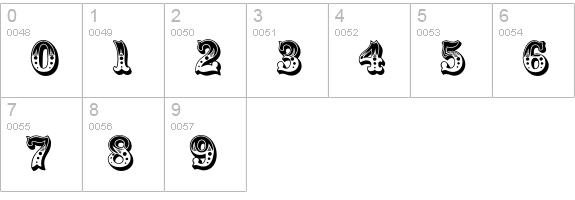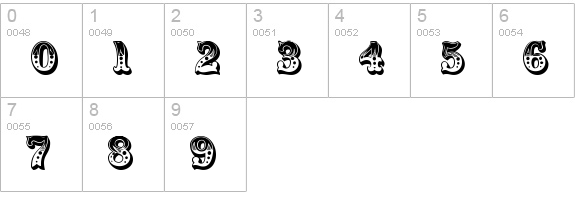
Dolphin font is a playful and whimsical typeface that exudes a sense of freedom and joy. With its smooth curves and elegant strokes, Dolphin font is perfect for adding a touch of creativity to any design project. Whether you're working on a logo, branding materials, or invitations, Dolphin font is sure to make your text stand out. Best of all, Dolphin font is available for free download at FontsMarket.com, making it easily accessible for designers and creatives looking to add a unique flair to their work. Embrace the spirit of playfulness with Dolphin font and let your imagination run wild!